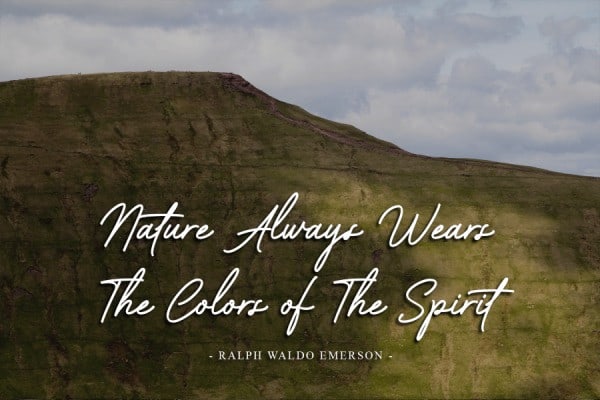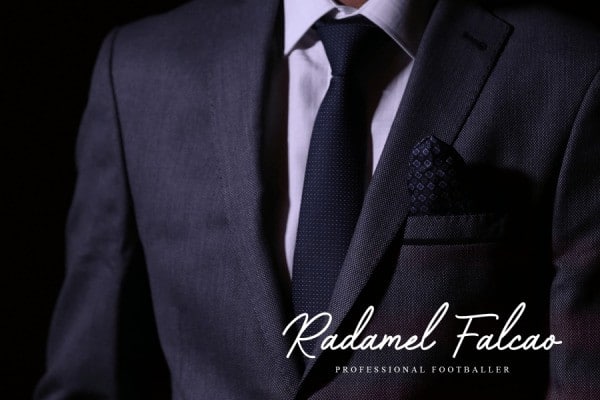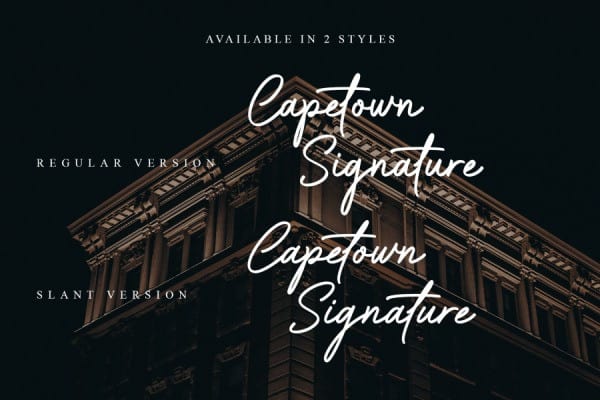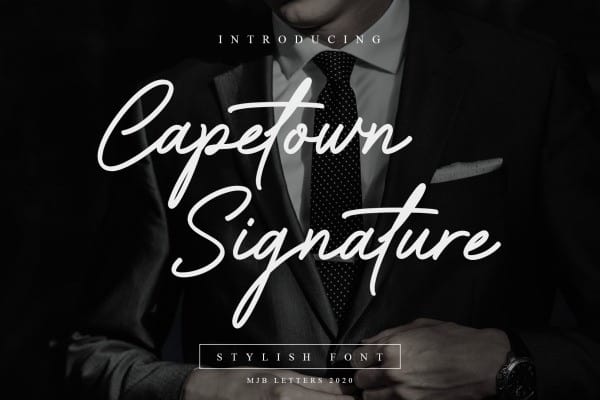
Capetown Signature Font
Glad to introduce you a new Capetown Signature Font. Give your designs an authentic handwritten handcrafted feel. Made from font designer named MJB Letters. This font is a modern and classic script font, perfect for signatures, branding, logos, photography, looks very clean and elegant, it will give the impression of luxury to your design.